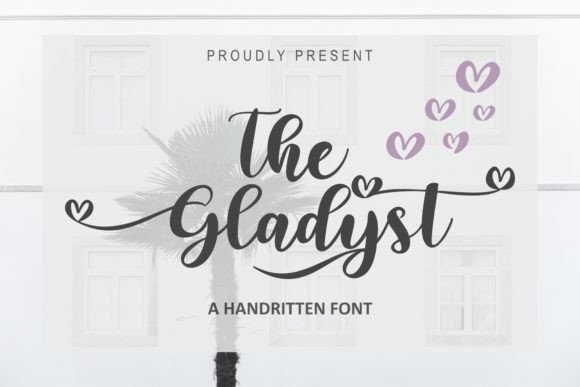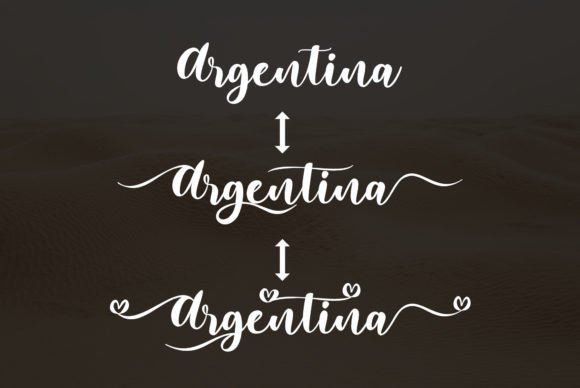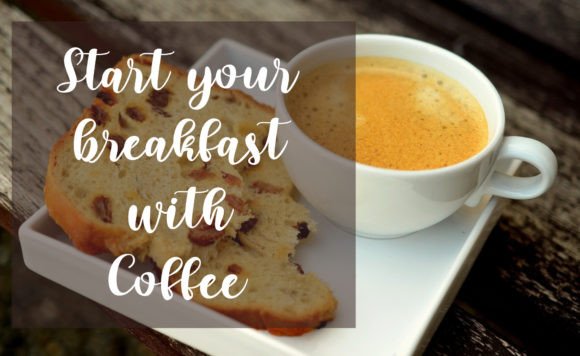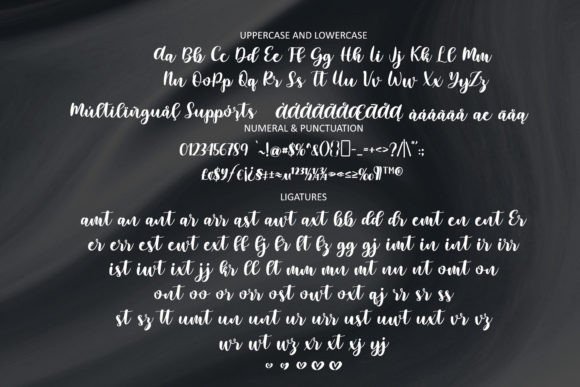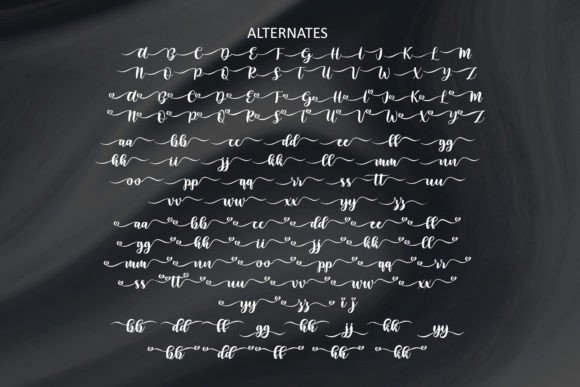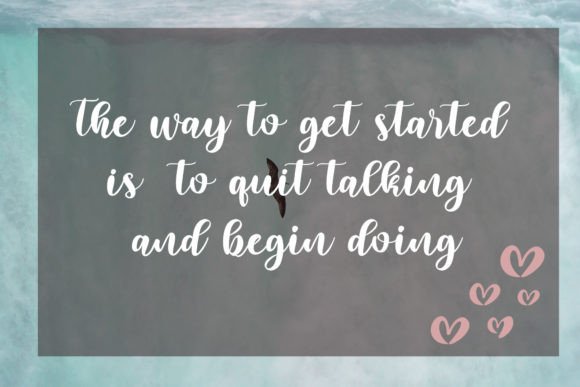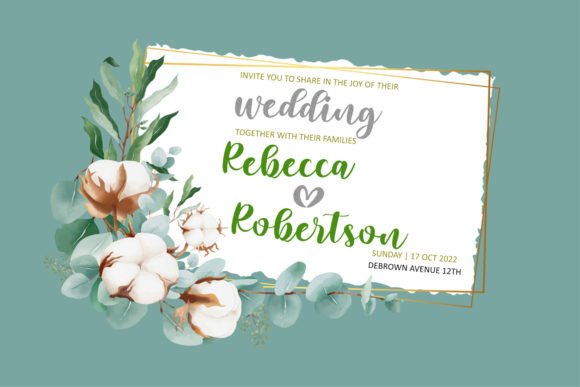
The Gladyst Font
About The Gladyst Font
The Gladyst is a unique and elegant handwritten font. It looks beautiful on a variety of designs requiring a personalized style. This font is PUA encoded which means you can access all of the amazing glyphs and ligatures with ease!